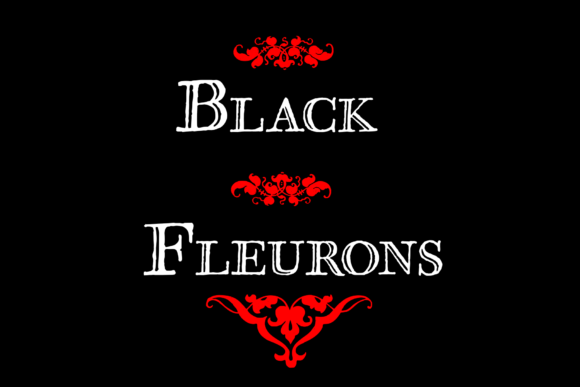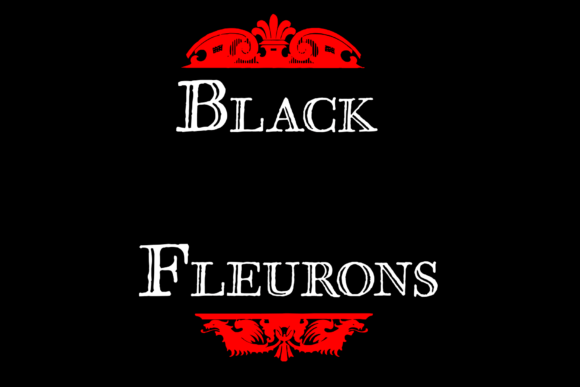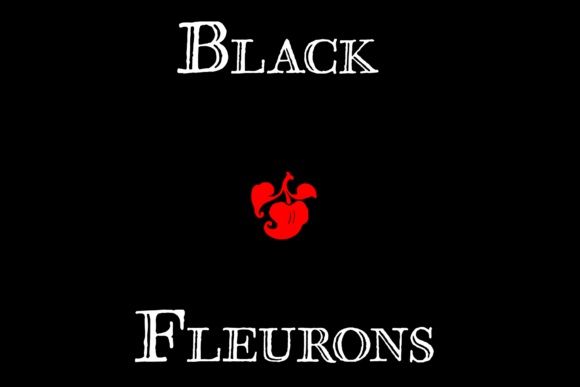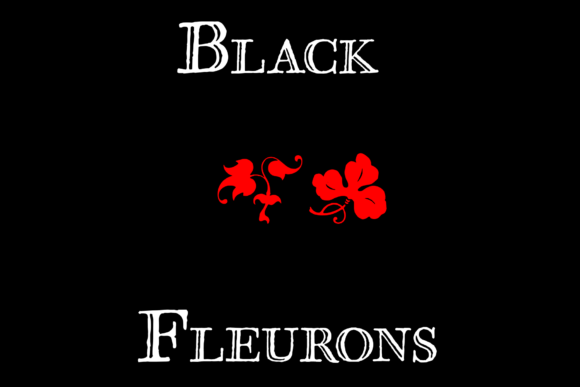
I still remember the frustration of working on a project, hours spent searching for the perfect font to match my client’s vision. I had tried countless options, but nothing seemed quite right. That was until I stumbled upon Black Fleurons, an exquisite classic ornament font expertly crafted by Intellecta Design. In that moment, I knew I had found something special – a font that would elevate my designs and leave a lasting impression.
Unveiling Black Fleurons
Black Fleurons is more than just a font; it’s a captivating experience that embellishes your projects with distinctive elegance. This unique design element borrows inspiration from classic aesthetics, infusing them with a contemporary twist. Each ornament in this collection seamlessly weaves together, creating a symphony of design elements that form an impressive typography masterpiece.
- ✨ Exquisite classic ornament design that adds a touch of sophistication to any project
- ✅ Elegant and timeless aesthetic that never goes out of style
- 💫 Versatile and adaptable to various design contexts, from luxury branding to wedding invitations
- 🔍 Intricate details and beautiful craftsmanship that set it apart from other fonts
While Black Fleurons is an exceptional font, there are a few things to consider:
- ⚠️ Limited character set, which may not be suitable for body text or extensive writing
- 🤔 May require additional design effort to integrate with other fonts or design elements
The story behind Black Fleurons begins with Intellecta Design’s passion for classic aesthetics and timeless elegance. The design team drew inspiration from traditional ornamentation, infusing it with a modern twist to create a truly unique font. Their goal was to craft a font that would evoke a sense of sophistication and refinement, perfect for designers seeking to add a touch of luxury to their projects.
A: Black Fleurons is best used as an accent font or for decorative purposes, such as headings, titles, or ornamental elements.